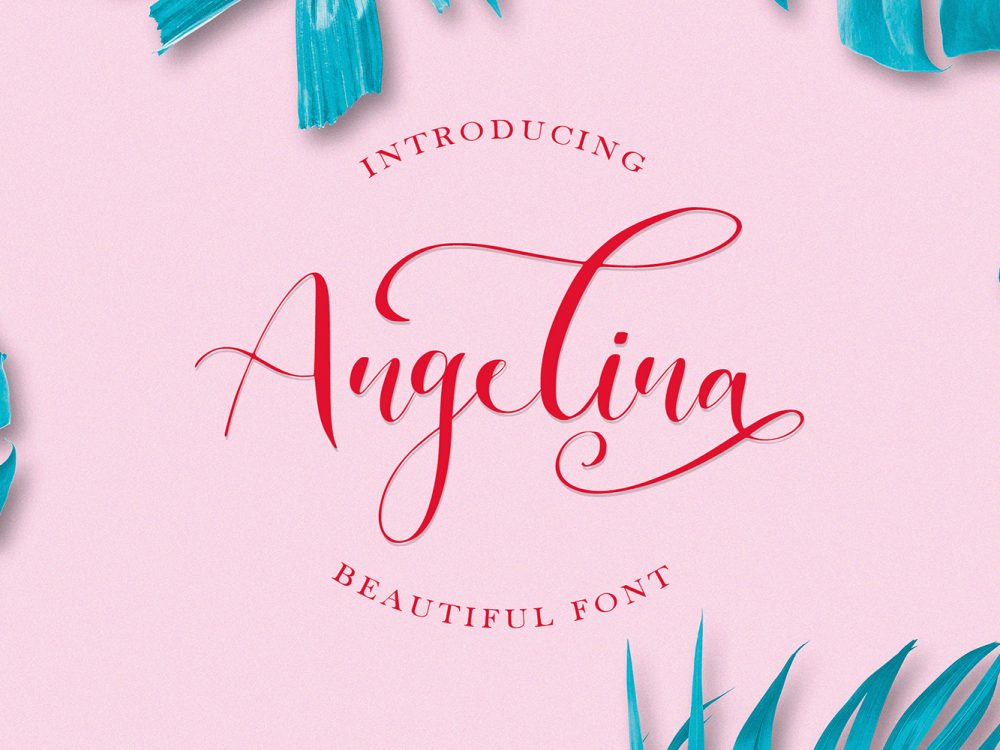
Angelina Free Font
Angelina Free Font is an interesting elegant handwritten typeface that sets itself apart from other fonts with a modern calligraphic typeface. This font is very well suited for various projects that require a scripted modern curly handwritten font. Use this font to create memorable branding projects, logos, wedding designs, social media posts, advertisements, product packaging, product designs, label, photography, watermark, invitation, stationery, and more. Improve your professional level using this font. If you like it don’t forget to check out the full version.